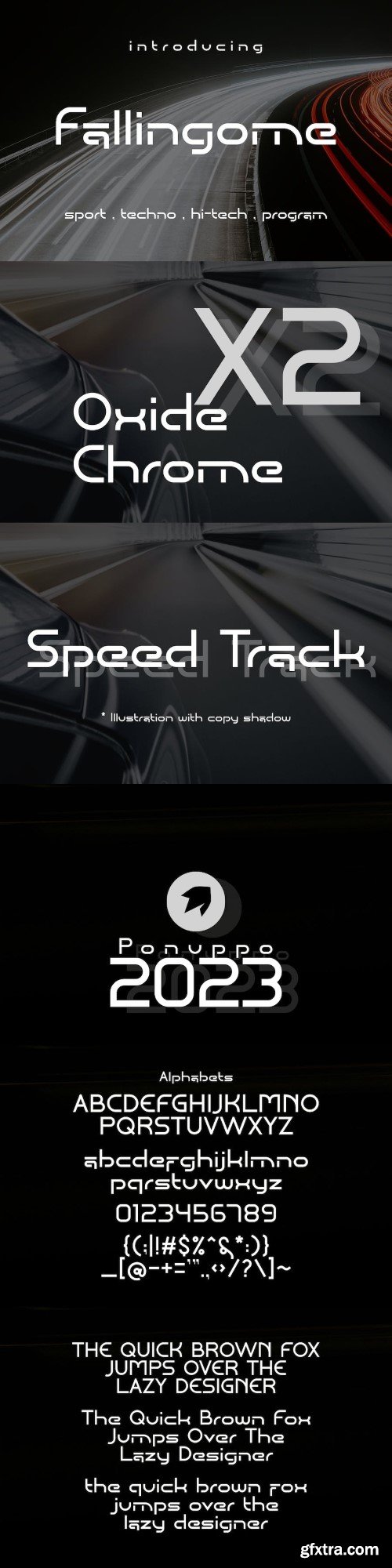
Fallout Font
Fonts are close to the world of technology, from robotics, software, automotive even to micro and macro technology. The font really has reliable performance among the techno-font generation.